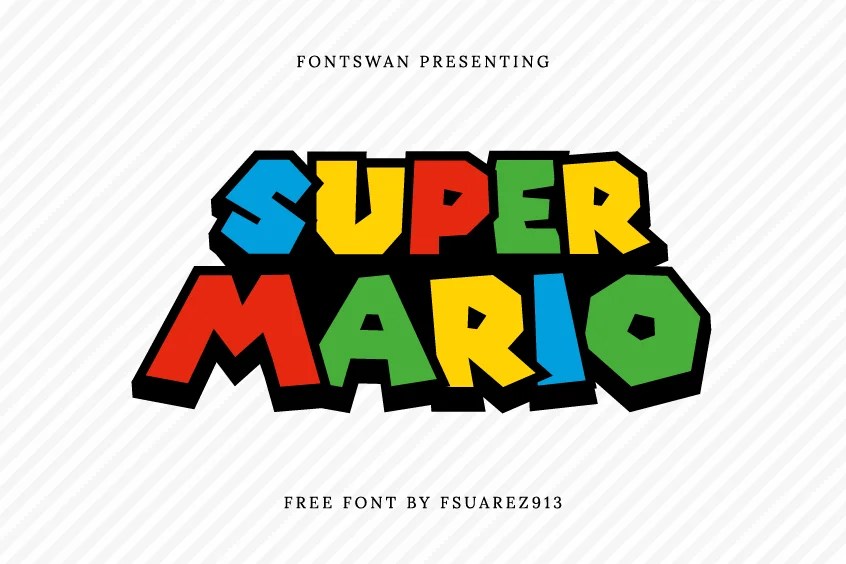
What Is The Mario Font Called . The mario and luigi font, created by 24hourfonts, is a unique typeface that includes various symbols and images inspired by the beloved super mario series of video games. It is a caps only font with numerals and limited punctuation marks. Perfect for designers, gamers, and fans to add a nostalgic touch to any project. These include the super mario 256 font which is used in the logo of super mario. 3,625,764 downloads (1,189 yesterday) 52 comments 100% free. Both the capital and lowercase letters are different, which adds more. The lettering for the super mario logo is very similar to a font named super mario 256 by fsuarez913. You can download the font for free here. Super mario 256 by fsuarez913. Unlock a world of creativity with free super mario and video game fonts! Typeface mario 64 is a font based on the super mario 64 logo which appeared on the nintendo 64 in 1996.
Unlock a world of creativity with free super mario and video game fonts! Super mario 256 by fsuarez913. You can download the font for free here. These include the super mario 256 font which is used in the logo of super mario. 3,625,764 downloads (1,189 yesterday) 52 comments 100% free. The mario and luigi font, created by 24hourfonts, is a unique typeface that includes various symbols and images inspired by the beloved super mario series of video games. Both the capital and lowercase letters are different, which adds more. Typeface mario 64 is a font based on the super mario 64 logo which appeared on the nintendo 64 in 1996. The lettering for the super mario logo is very similar to a font named super mario 256 by fsuarez913. It is a caps only font with numerals and limited punctuation marks.
What Is The Mario Font Called 3,625,764 downloads (1,189 yesterday) 52 comments 100% free. 3,625,764 downloads (1,189 yesterday) 52 comments 100% free. It is a caps only font with numerals and limited punctuation marks. The lettering for the super mario logo is very similar to a font named super mario 256 by fsuarez913. You can download the font for free here. Both the capital and lowercase letters are different, which adds more. Typeface mario 64 is a font based on the super mario 64 logo which appeared on the nintendo 64 in 1996. Unlock a world of creativity with free super mario and video game fonts! These include the super mario 256 font which is used in the logo of super mario. Perfect for designers, gamers, and fans to add a nostalgic touch to any project. Super mario 256 by fsuarez913. The mario and luigi font, created by 24hourfonts, is a unique typeface that includes various symbols and images inspired by the beloved super mario series of video games.
Super Mario Font Mario Bros, World, & More! Free Download What Is The Mario Font Called Both the capital and lowercase letters are different, which adds more. 3,625,764 downloads (1,189 yesterday) 52 comments 100% free. You can download the font for free here. The lettering for the super mario logo is very similar to a font named super mario 256 by fsuarez913. The mario and luigi font, created by 24hourfonts, is a unique typeface that includes. What Is The Mario Font Called.
Super Mario font, Super Mario TTF, Super Mario svg, Super Mario font What Is The Mario Font Called 3,625,764 downloads (1,189 yesterday) 52 comments 100% free. The mario and luigi font, created by 24hourfonts, is a unique typeface that includes various symbols and images inspired by the beloved super mario series of video games. The lettering for the super mario logo is very similar to a font named super mario 256 by fsuarez913. These include the super mario. What Is The Mario Font Called.
Super Mario Font Mario Alphabet Svg Super Mario Font Svg Etsy What Is The Mario Font Called Both the capital and lowercase letters are different, which adds more. The mario and luigi font, created by 24hourfonts, is a unique typeface that includes various symbols and images inspired by the beloved super mario series of video games. Unlock a world of creativity with free super mario and video game fonts! Perfect for designers, gamers, and fans to add. What Is The Mario Font Called.
Mario Font, Mario Letters, Mario numbers, Mario Inspire What Is The Mario Font Called Super mario 256 by fsuarez913. Perfect for designers, gamers, and fans to add a nostalgic touch to any project. Both the capital and lowercase letters are different, which adds more. You can download the font for free here. The mario and luigi font, created by 24hourfonts, is a unique typeface that includes various symbols and images inspired by the beloved. What Is The Mario Font Called.
Super Mario Font Mario Bros, World, & More! Free Download What Is The Mario Font Called Perfect for designers, gamers, and fans to add a nostalgic touch to any project. Typeface mario 64 is a font based on the super mario 64 logo which appeared on the nintendo 64 in 1996. Super mario 256 by fsuarez913. These include the super mario 256 font which is used in the logo of super mario. You can download the. What Is The Mario Font Called.
Super Mario Font SVG, Mario ABC Letter Alphabet in 4 colors Origin What Is The Mario Font Called You can download the font for free here. The mario and luigi font, created by 24hourfonts, is a unique typeface that includes various symbols and images inspired by the beloved super mario series of video games. Typeface mario 64 is a font based on the super mario 64 logo which appeared on the nintendo 64 in 1996. Super mario 256. What Is The Mario Font Called.
Mario Font , Mario Buchstaben, Mario Zahlen, Mario Alphabet, Mario Font What Is The Mario Font Called It is a caps only font with numerals and limited punctuation marks. Typeface mario 64 is a font based on the super mario 64 logo which appeared on the nintendo 64 in 1996. 3,625,764 downloads (1,189 yesterday) 52 comments 100% free. Super mario 256 by fsuarez913. Unlock a world of creativity with free super mario and video game fonts! The. What Is The Mario Font Called.
Super Mario font svg, Mario bros Alphabet png BOXMEDIART Svg Cut What Is The Mario Font Called Perfect for designers, gamers, and fans to add a nostalgic touch to any project. Typeface mario 64 is a font based on the super mario 64 logo which appeared on the nintendo 64 in 1996. It is a caps only font with numerals and limited punctuation marks. 3,625,764 downloads (1,189 yesterday) 52 comments 100% free. These include the super mario. What Is The Mario Font Called.